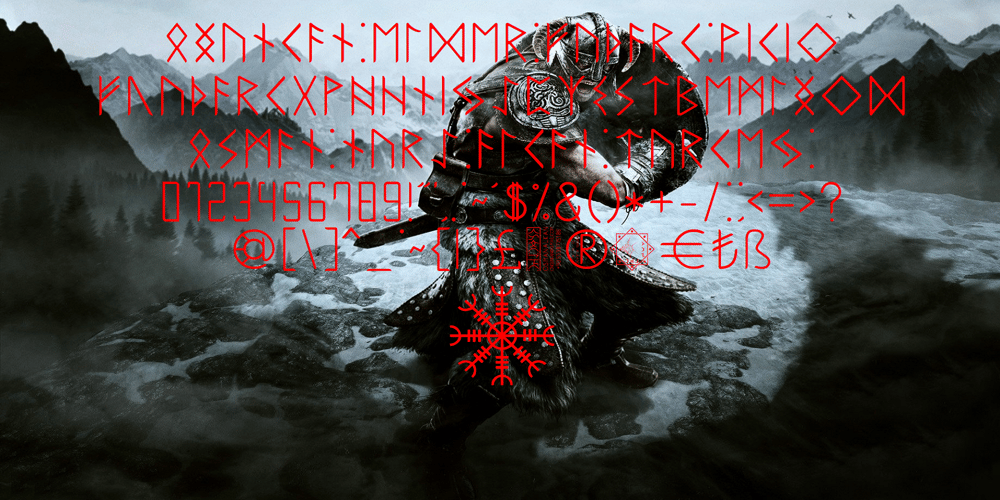
Ongunkan Elder Futhark Viking Font Family was designed by Osman Nuri ALKAN and published by Runic World Tamgacı. Ongunkan Elder Futhark Viking contains 1 styles and family package options. Vikings or Norses are Scandinavian pirate and merchant tribes. Actually, “Viking” or “Nors” is not a nation name; It is the name given to Dans, Norwegians, Swedes and other Scandinavians regardless of who they are. The Elder Futhark here is a runic script – a version of the Viking script. I will upload other versions over time. Write nice things with pleasure.